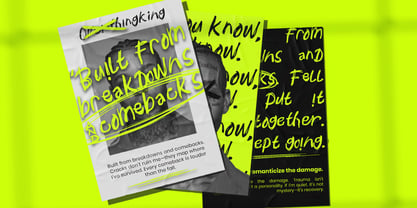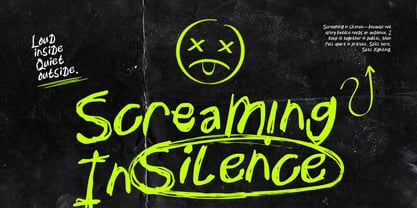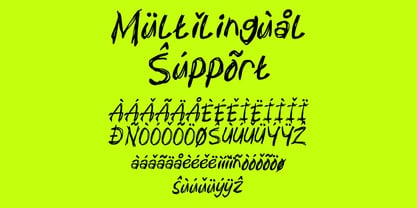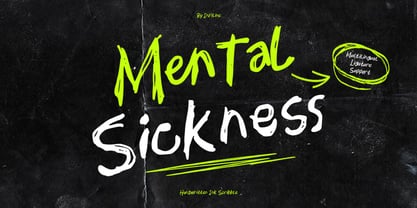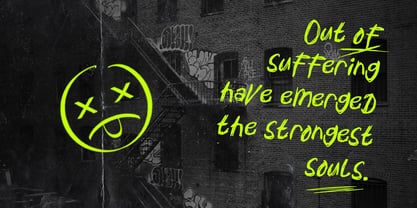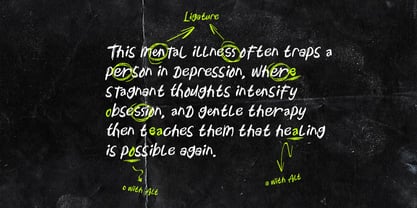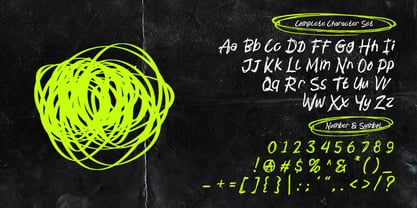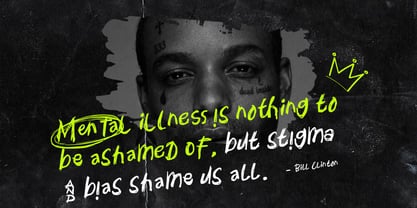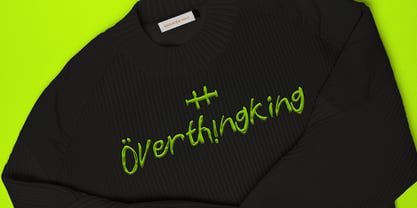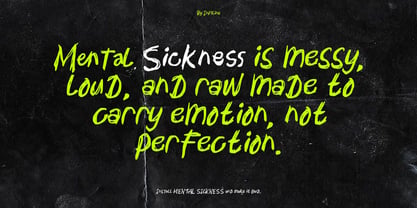
Mental Sickness
by Inviline
The Mental Sickness Font Family was designed by Virgiawan Listanto and published by Inviline. Mental Sickness contains 1 styles. More about this family
Mental Sickness is a striking handwritten script that showcases jagged strokes, ink scratches, and an irregular baseline. This bold and chaotic style effectively conveys strong emotions and a sense of immediacy, as demonstrated in the preview headlines and quotes. Perfectly optimized for impactful display words, this font excels in posters, statement quotes, and bold overlays on textured backgrounds. Its energetic forms, scribble underlines, and marker-like pressure enhance the intensity of short text lines and titles. The character set comprises uppercase A–Z, lowercase a–z, numerals 0–9, punctuation and symbols, standard ligatures, and select stylistic alternates. Additionally, accented Latin letters are included for comprehensive multilingual support, making it versatile for various branding, web, and editorial applications.
Designers: Virgiawan Listanto
Foundry: Inviline